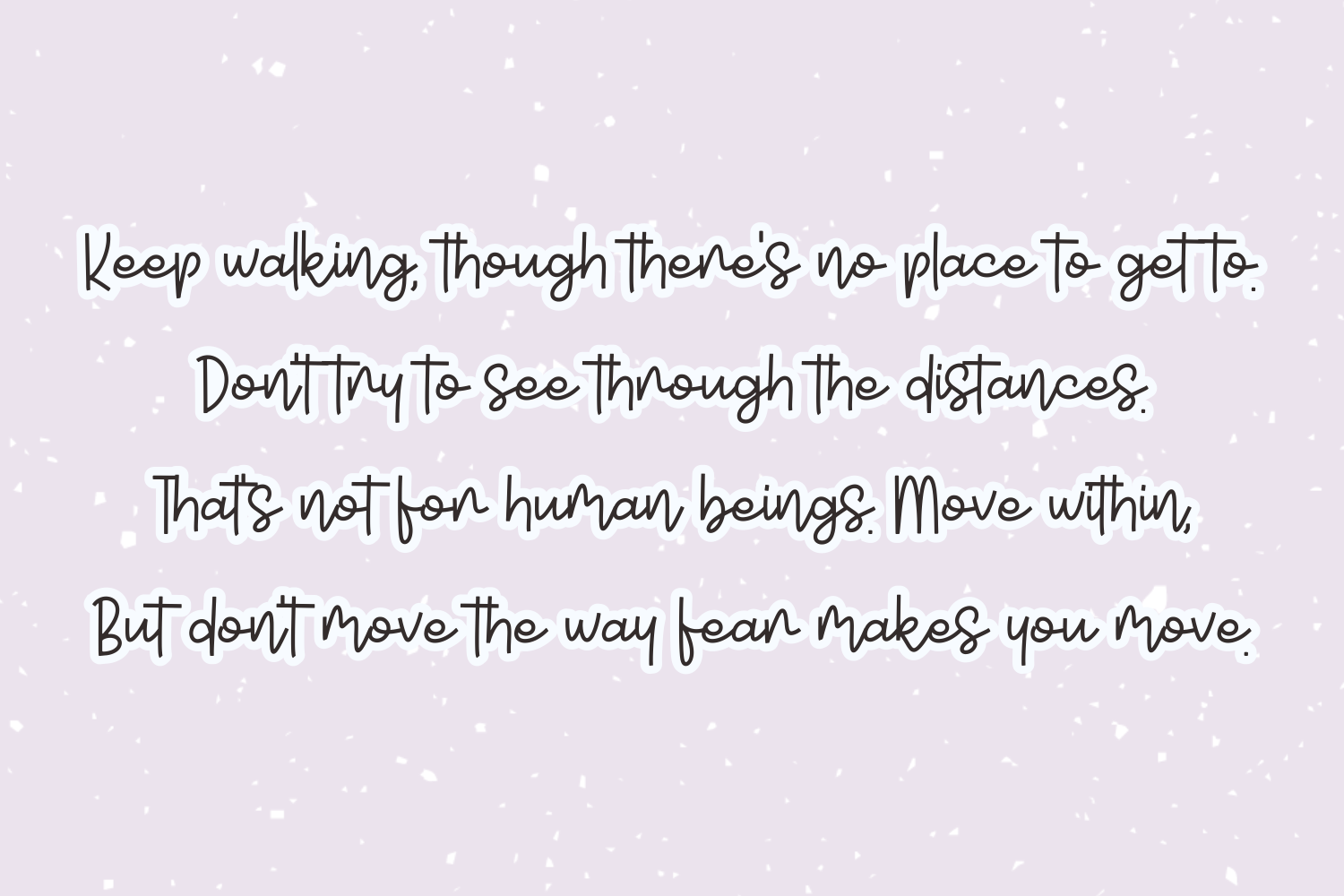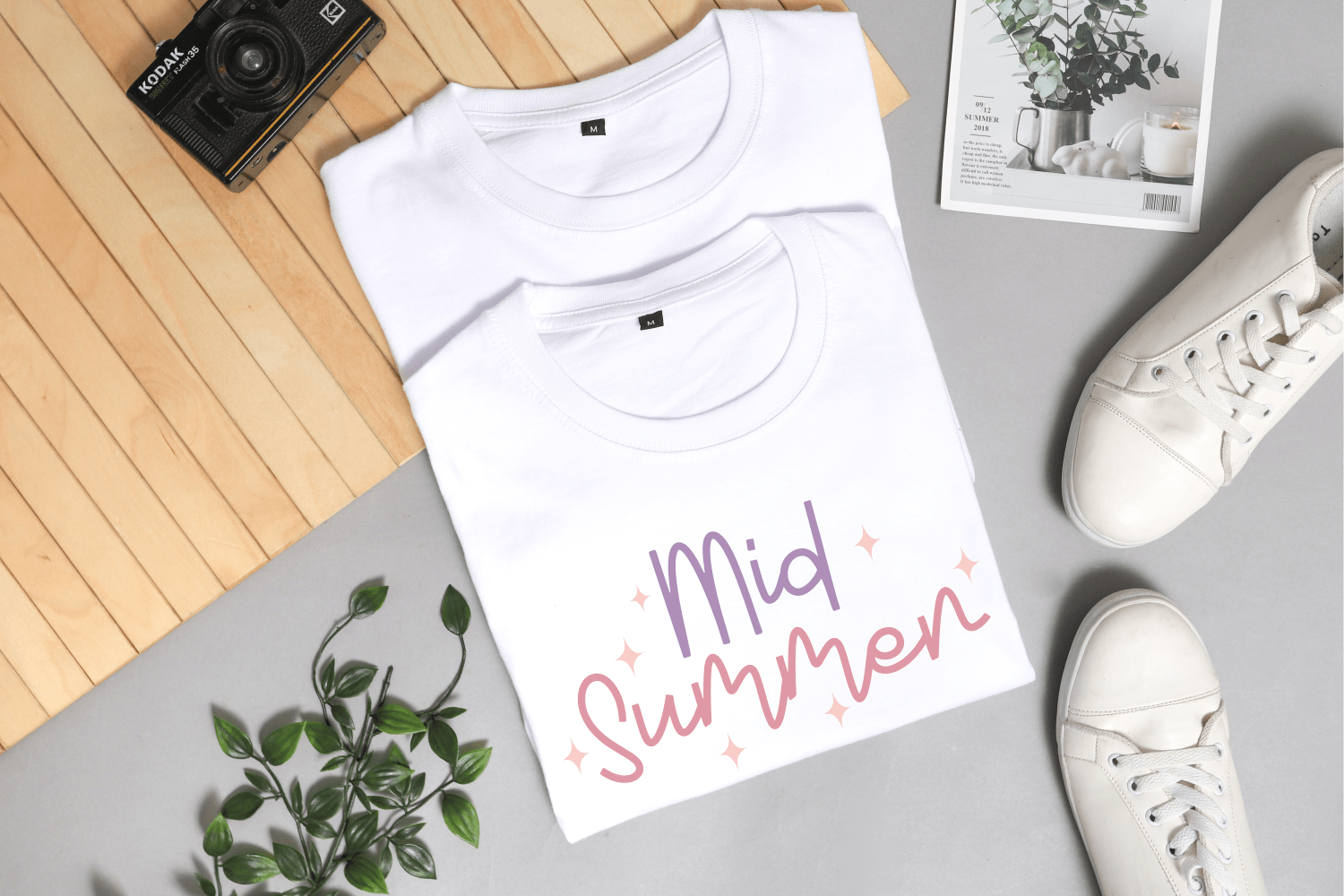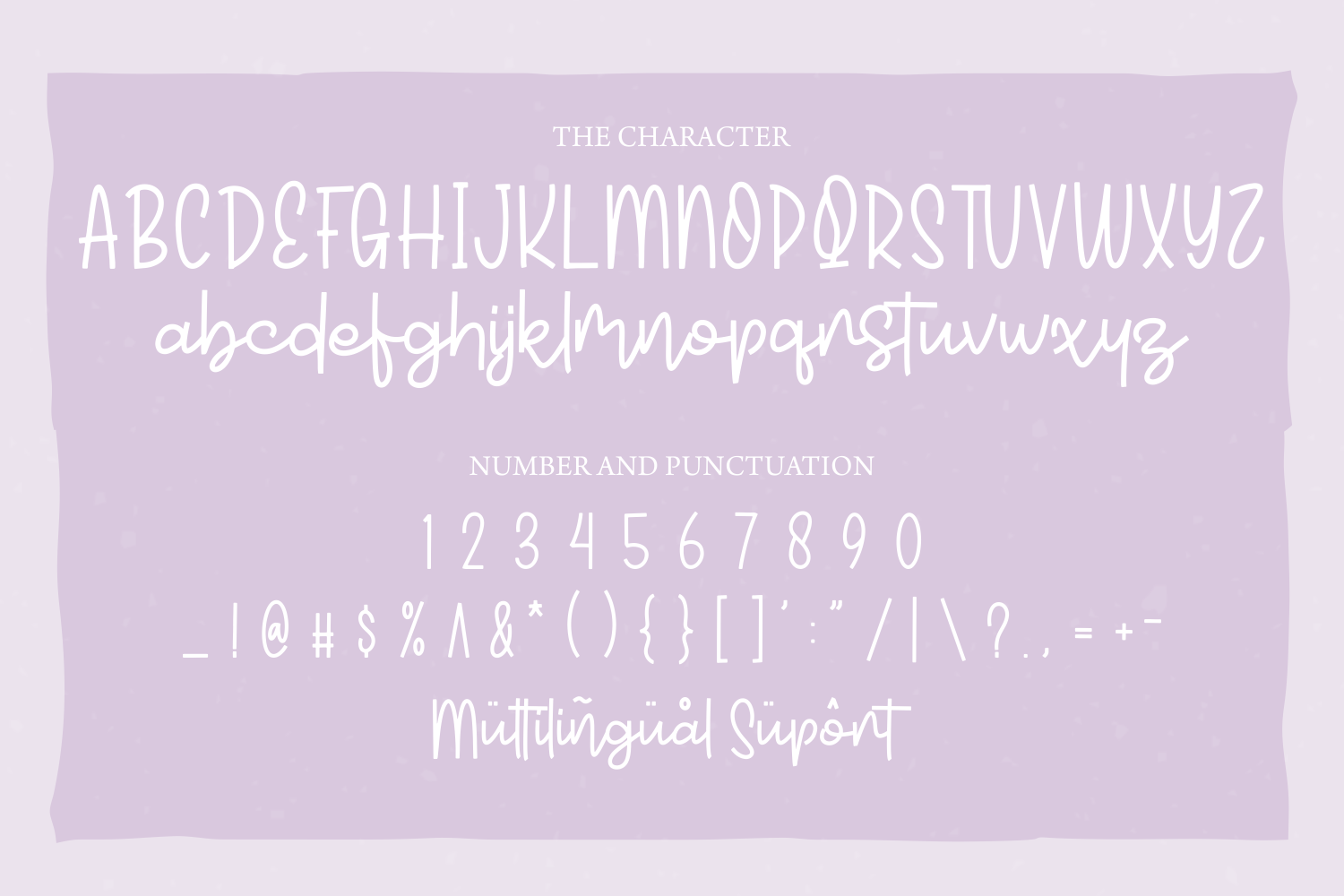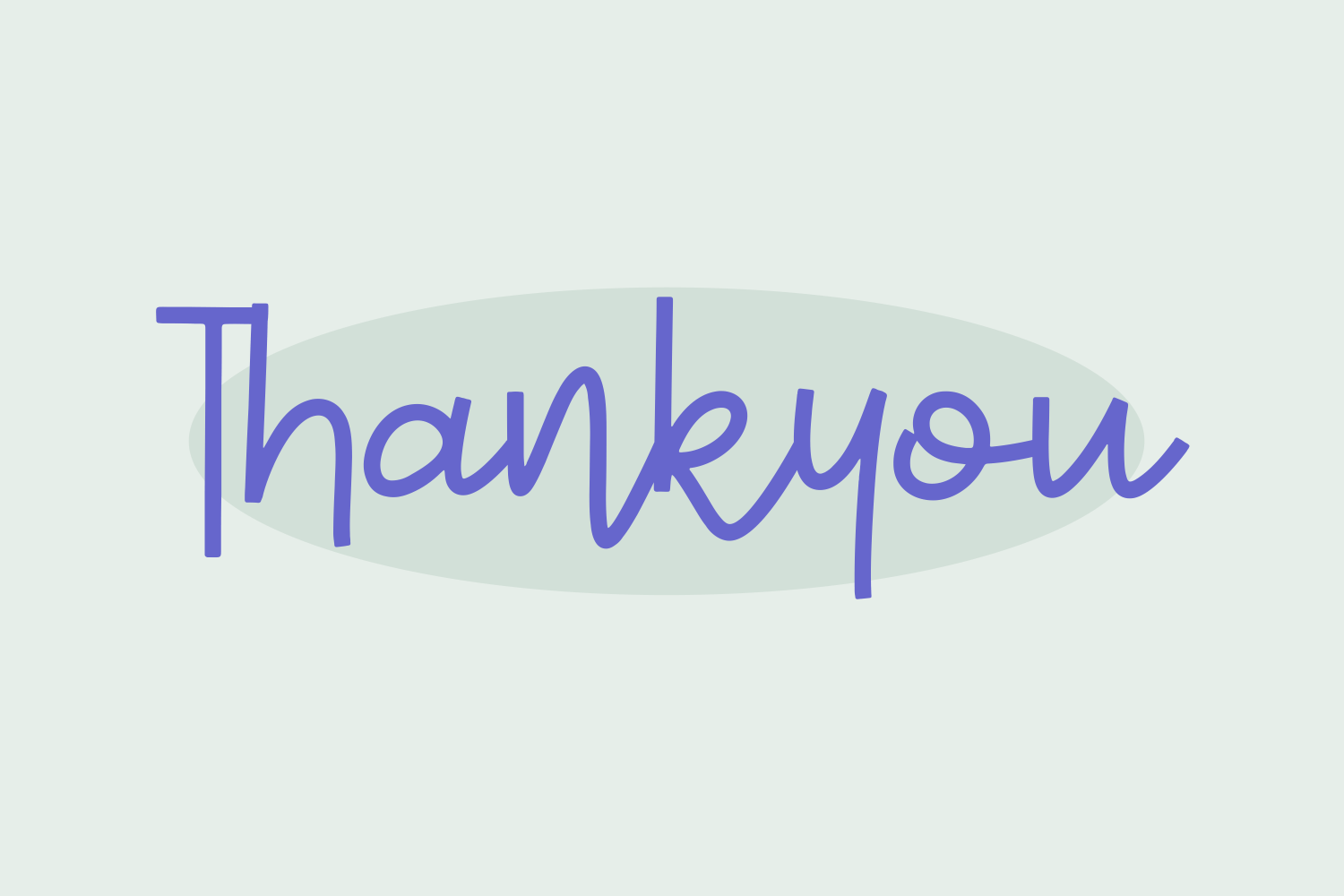
Perfectory Font
Perfectory Script Font is a fancy and elegant handcrafted font created to impress your audience and make your branding shine. Make your projects dance with this elegant and wonderful font wherever you use it. Use it for your headings, logos, ads, printed quotes, packaging, and even your website or social media branding. Every letter has a unique and beautiful touch, which will make your design come alive!